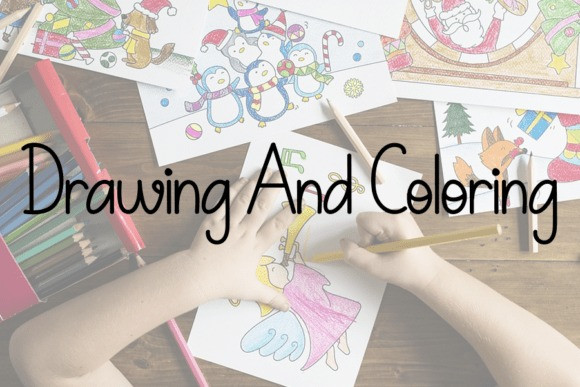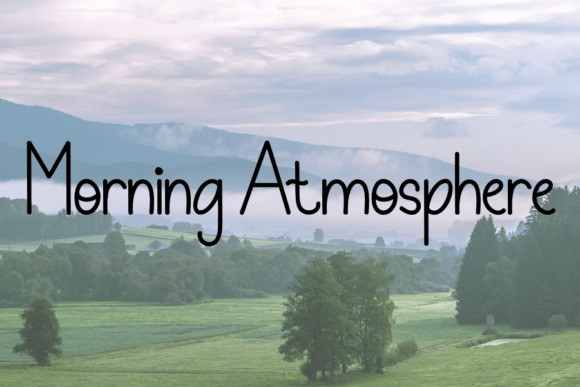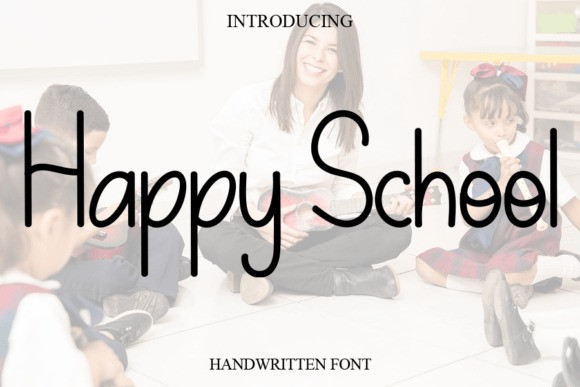
Happy School Handwriting Font
Happy School Handwriting Font is a handwritten font that captures the lively energy of childhood. With tall, cheerful letters and a smooth handwritten flow, it brings positivity and personality to every design.
Ideal for school projects, classroom posters, kids’ books, and educational branding, this font makes reading playful and approachable. It includes a full set of glyphs, alternates, ligatures, and multilingual support, offering creative freedom for teachers, designers, and crafters alike.